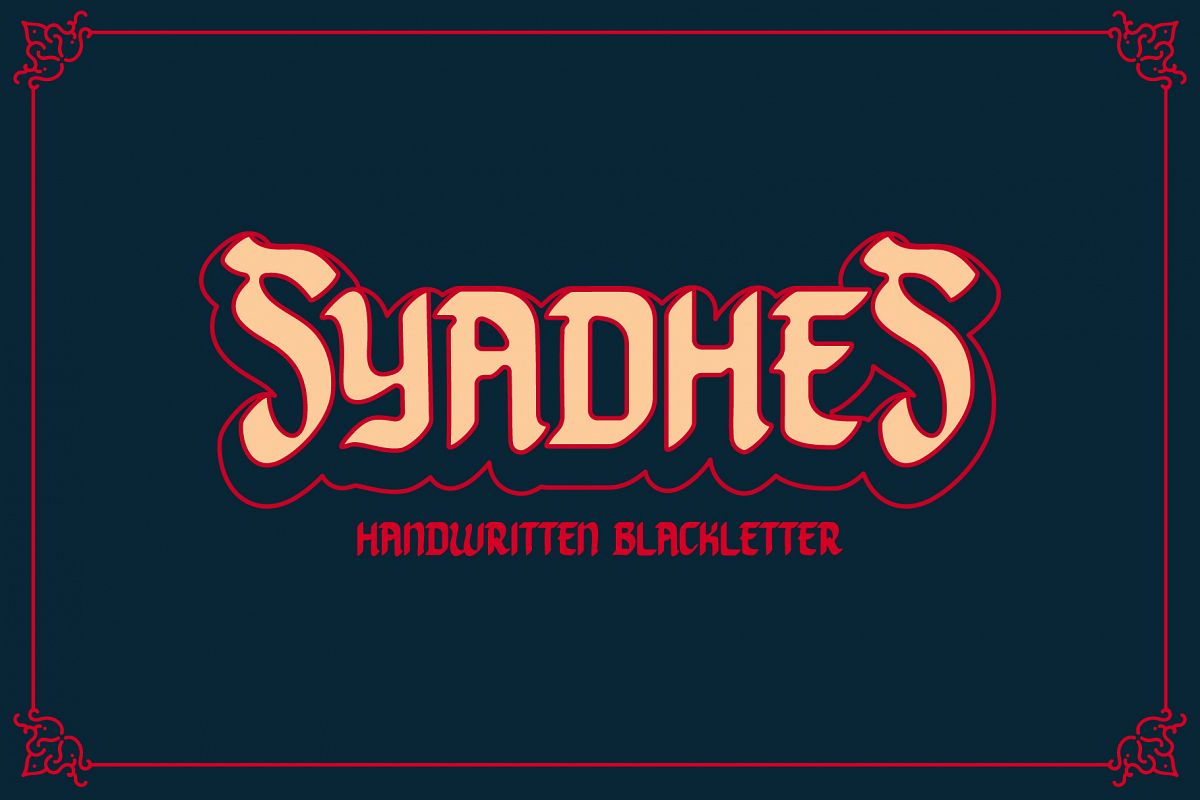
Syadhes + Extras
Syadhes
Syadesh is a new handwritten blackletter font. Also some extras vector graphic illustration.
Syadesh is suitable font for logo, signature, label, poster, letterhead, music/book cover, etc.